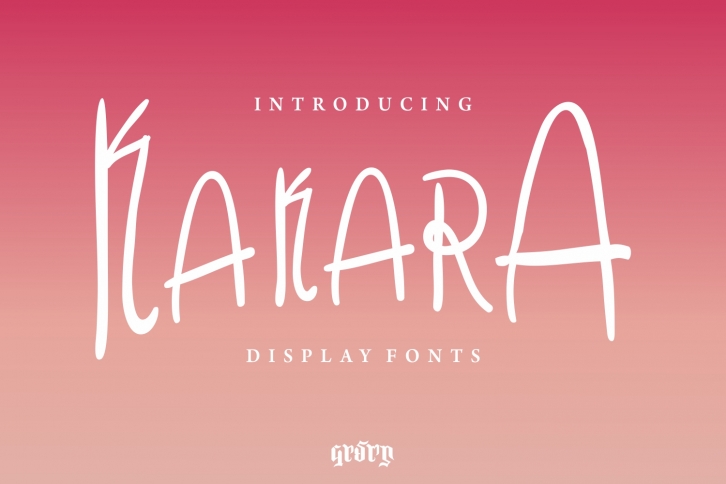
Kakara Display is a beautiful font that was designed by Garisman Studio. It's a great choice for designers and creatives who need such a font. It was released on April 14, 2018 and the file size is 2.16 MB. Kakara Display may give a more youthful, expressive and casual look to your project. It is a very beautiful, refined, elegant, and high-quality font.